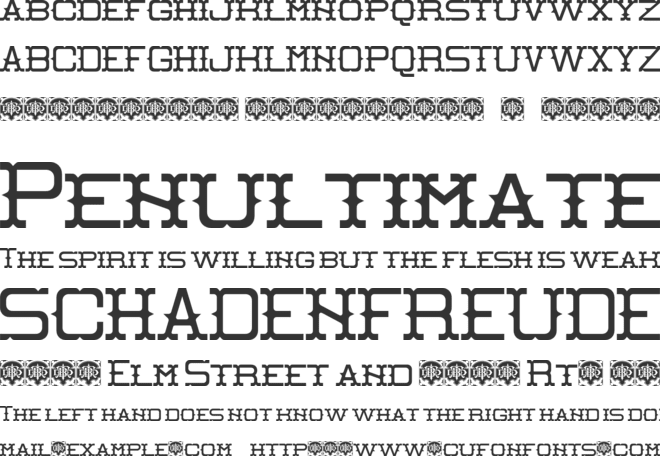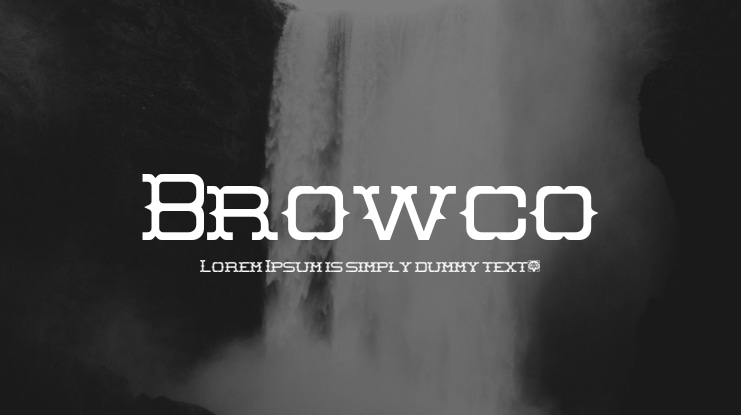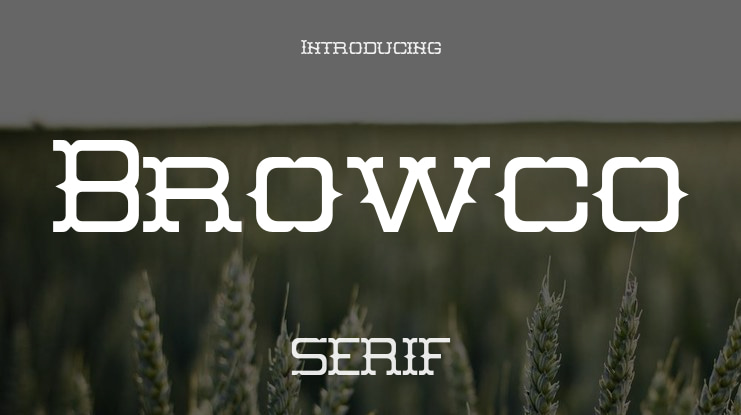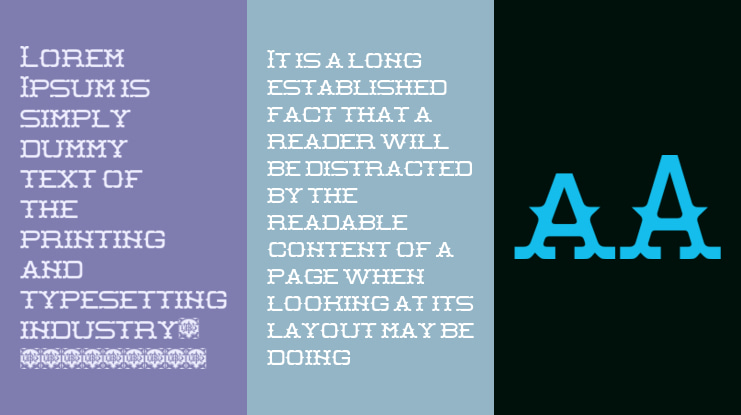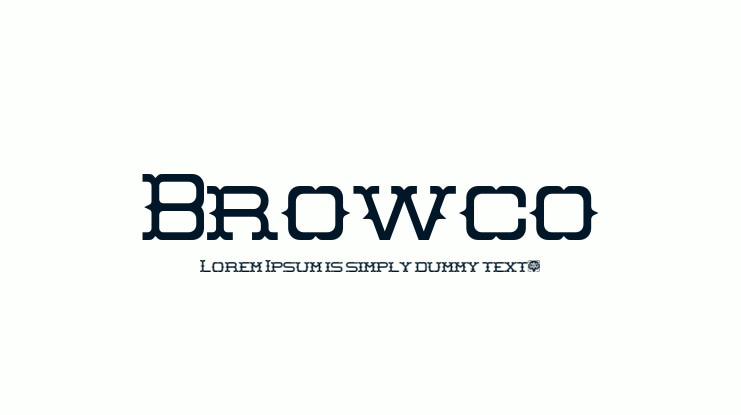
Browco Font
We proudly present Browco, a font inspired by the spiky letters of the American Wild West style. Browco is characterized by bold letters adorned with sharp spikes between their parts, providing a distinctive, vintage appearance.